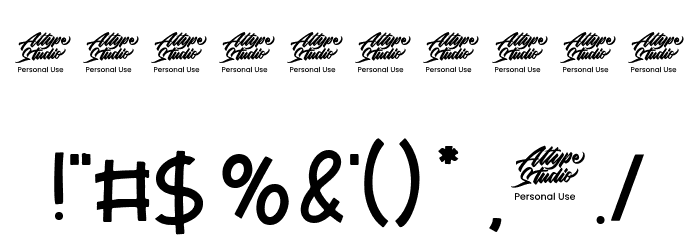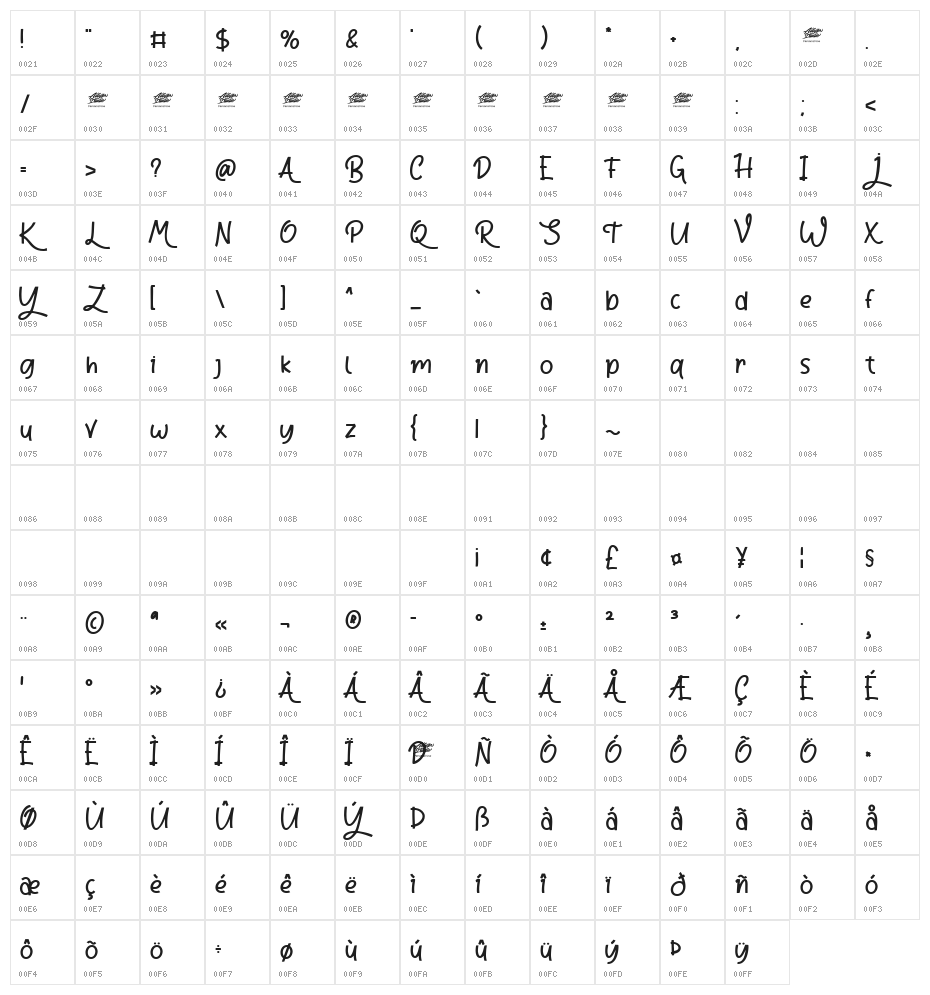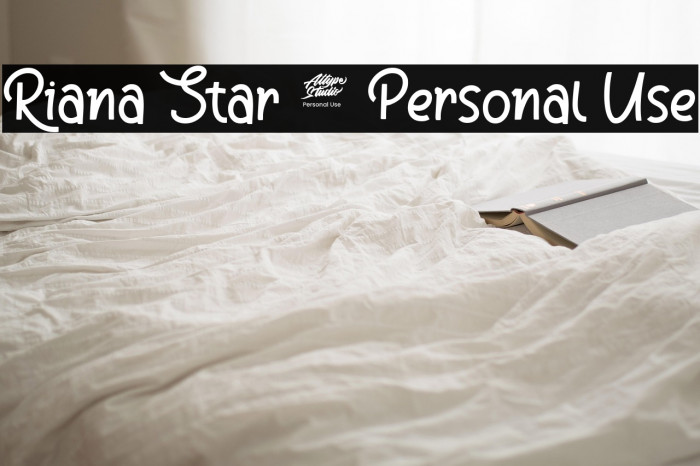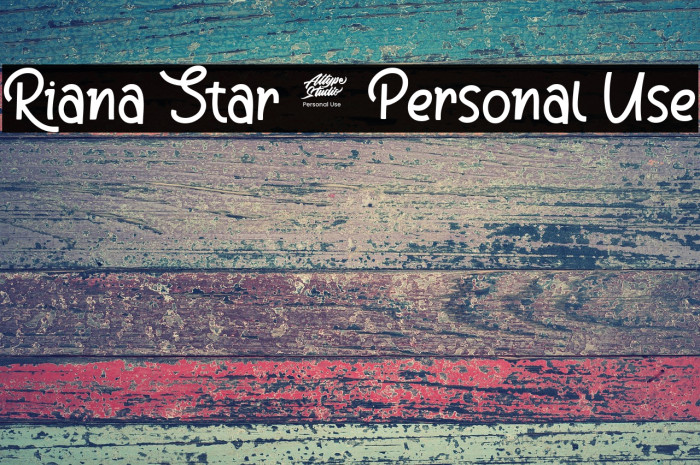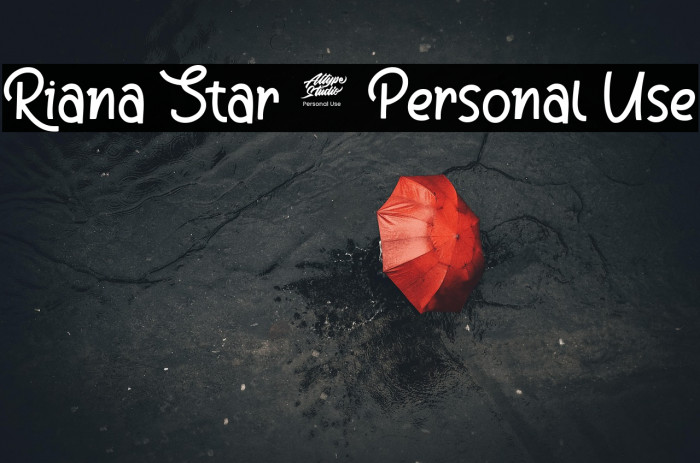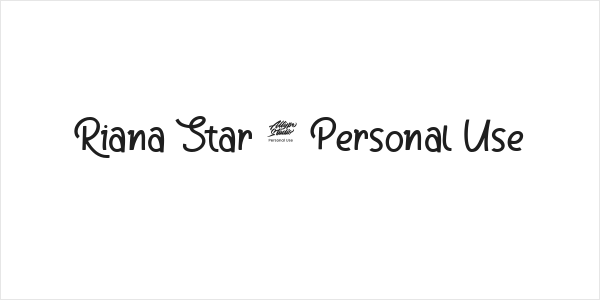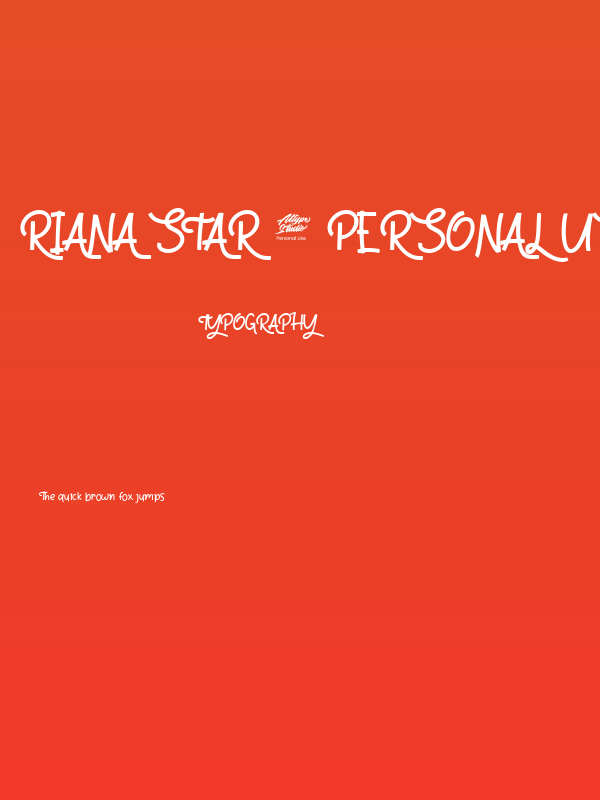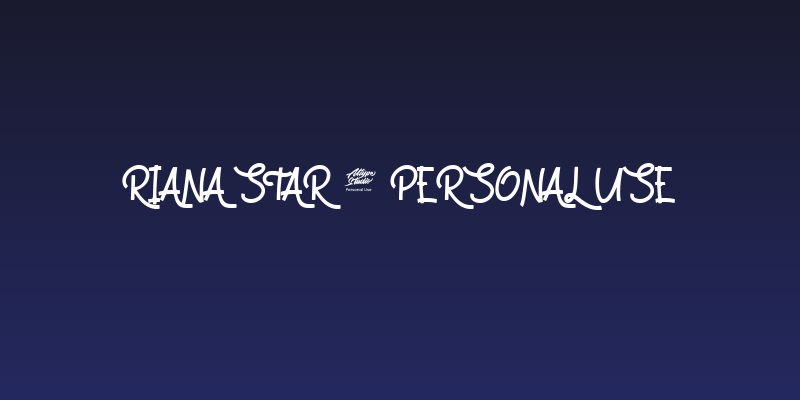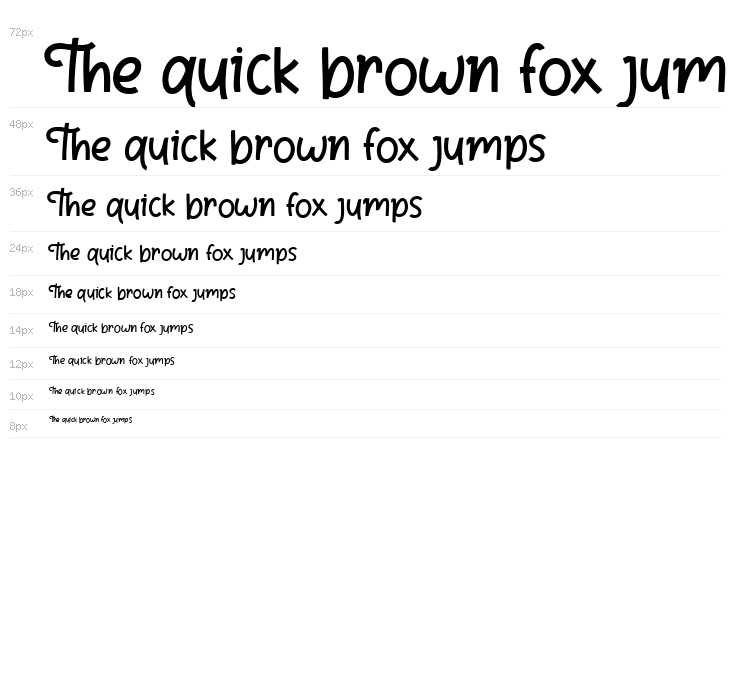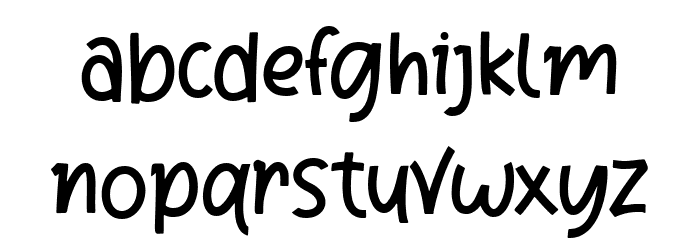
Riana Star - Personal Use Font
Riana Star - Personal Use Description
This font features a playful and whimsical style with a handwritten appearance. The uppercase letters are bold and dynamic, with a slight slant that adds a sense of movement. The lowercase letters maintain a consistent flow, complementing the uppercase with their rounded forms and smooth curves. The numerals and special characters follow the same lively aesthetic, making them suitable for creative and informal designs. The overall look is casual yet artistic, perfect for projects that require a personal touch.
| Proposed Projects | Ideal for greeting cards, invitations, posters, and branding projects that aim for a personal and artistic feel. |